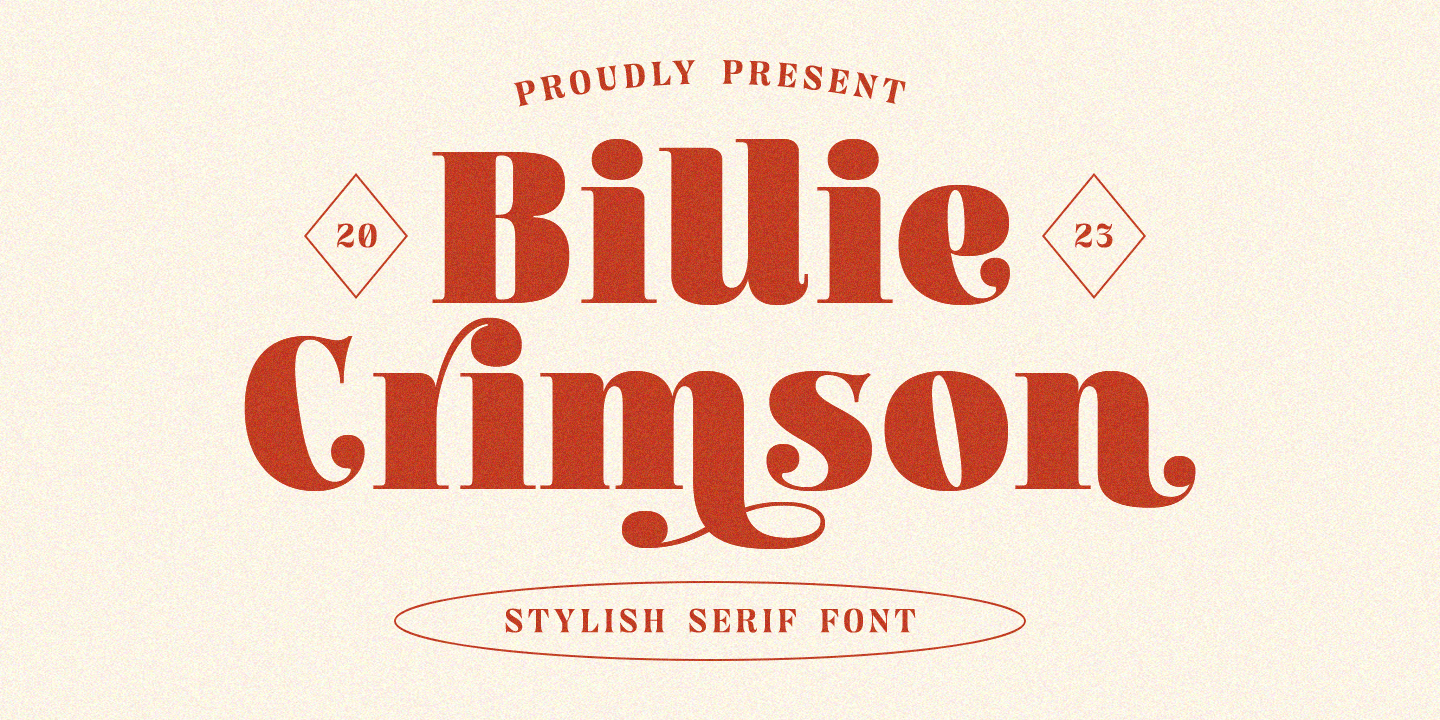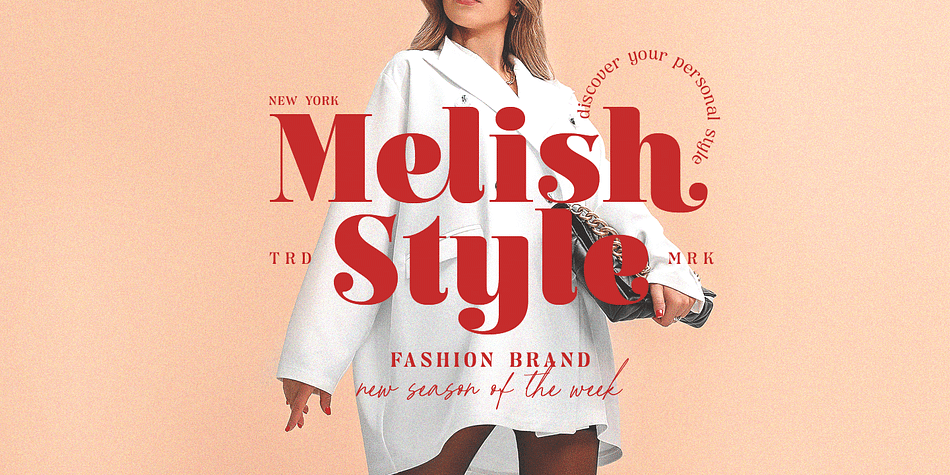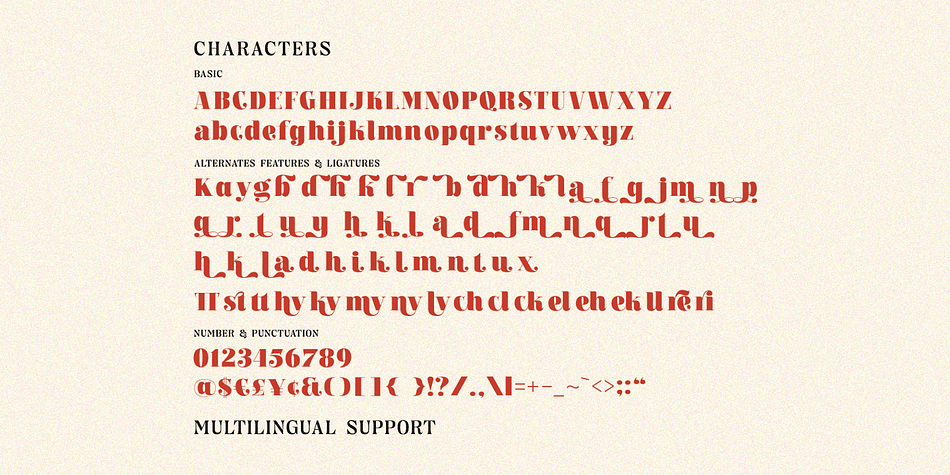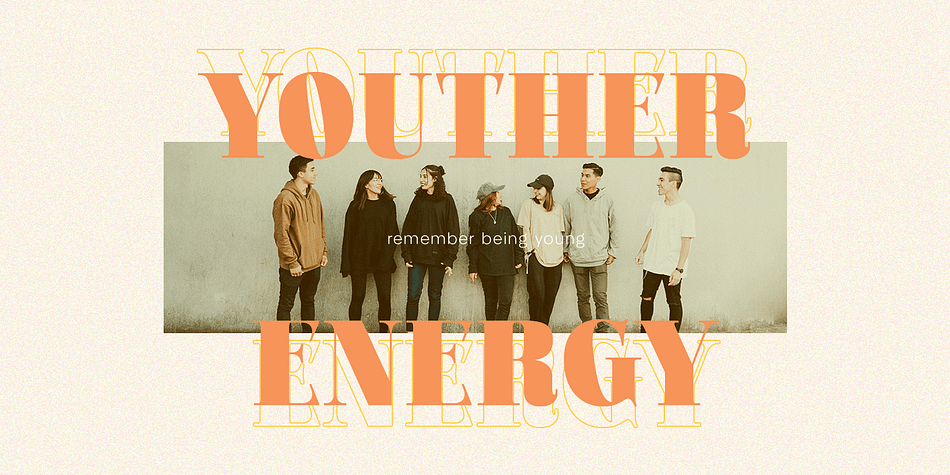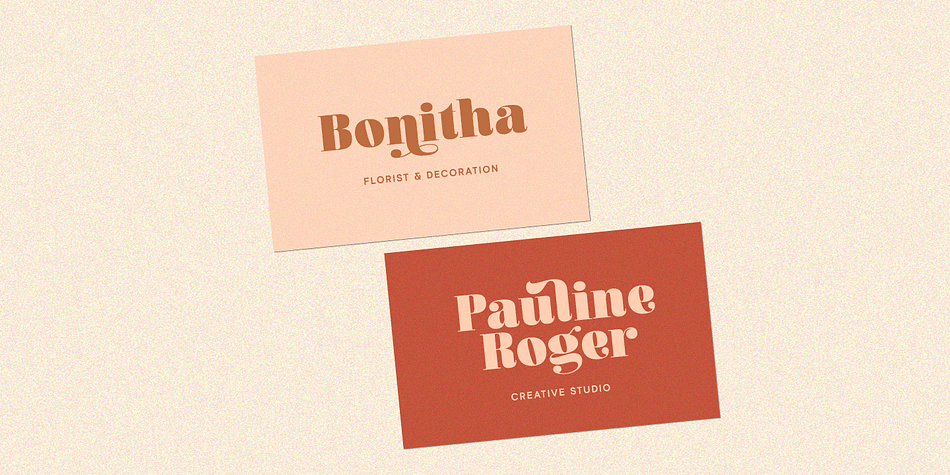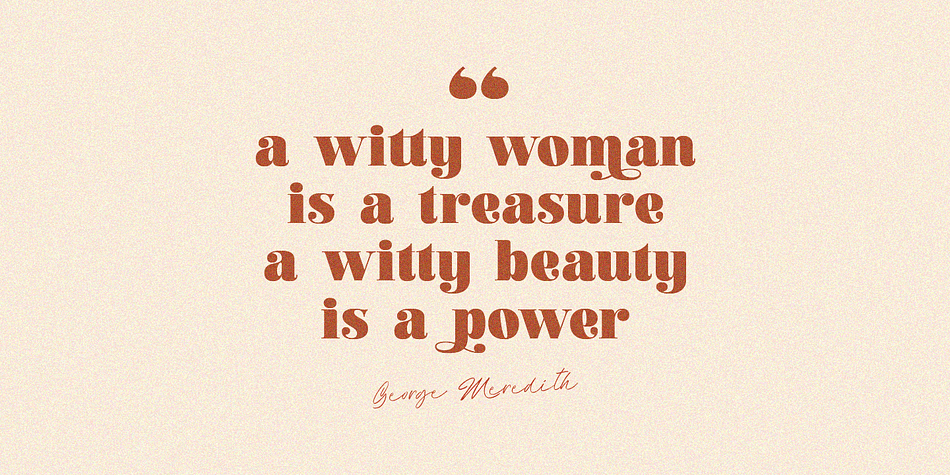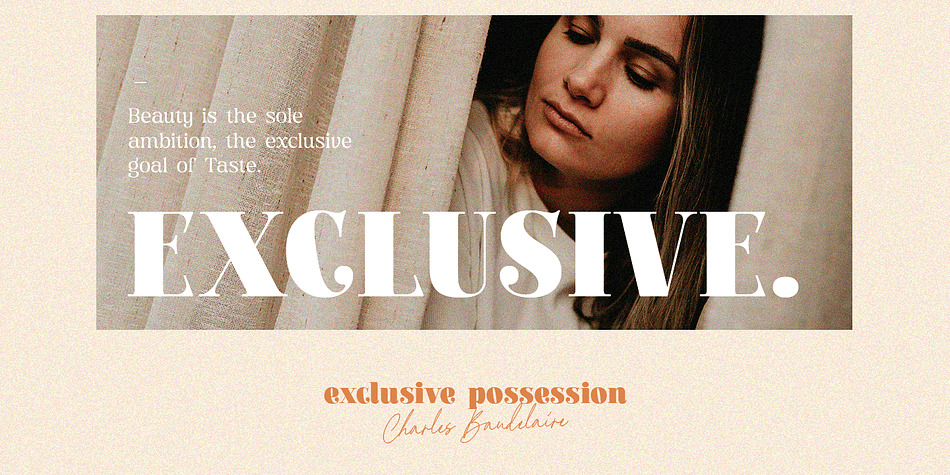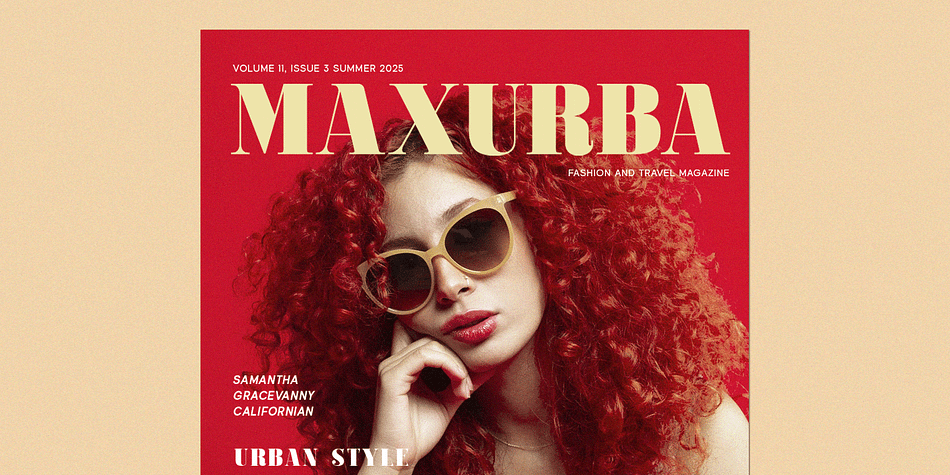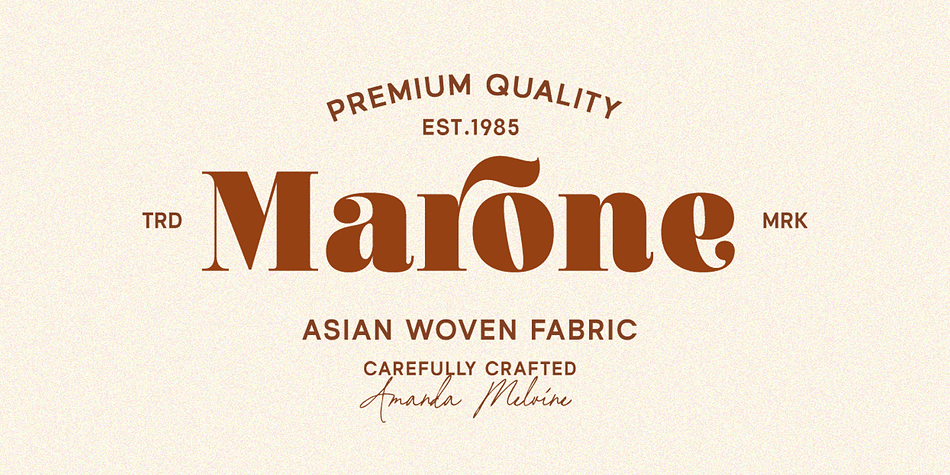
Billie Crimson
Designed by Hendry Juanda, Billie Crimson is a display serif and retro font family published by Letterhend Studio.
Billie Crimson is a stylish serif font that exudes class and timelessness. Its sophisticated & classic looks make it perfect for a variety of design projects, especially in logo, and the other various formal forms such as invitations, labels, logos, magazines, books, greeting / wedding cards, packaging, fashion, make up, stationery, novels, labels or any type of advertising purpose.The font comes with several alternate characters that add even more versatility and uniqueness to your designs.